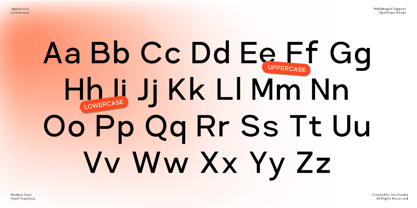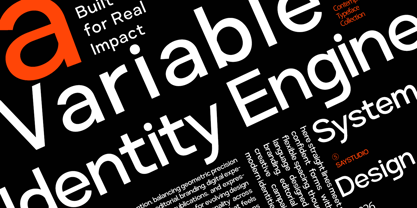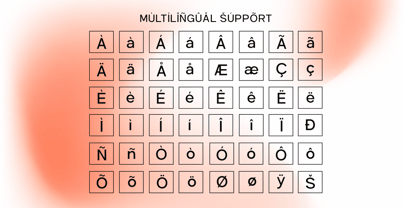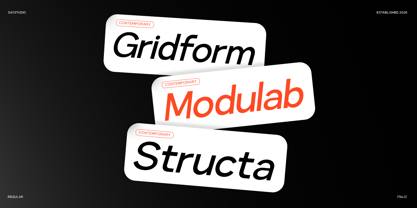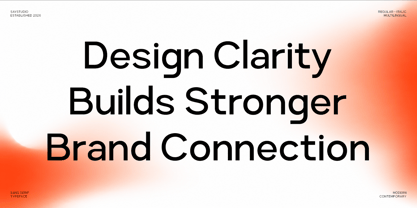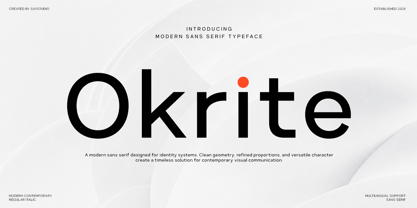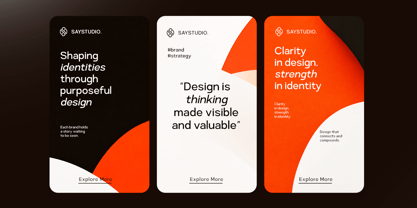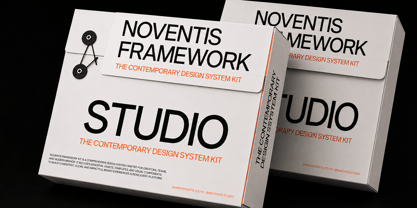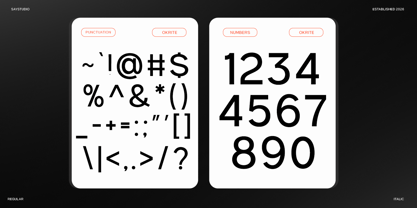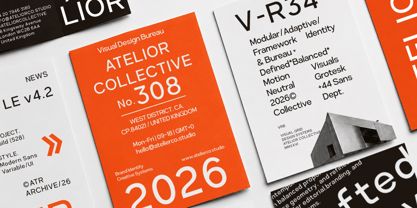
Okrite
Okrite is a modern geometric sans serif font designed for clean branding, editorial layouts, technology products, and contemporary visual identities. Built with balanced proportions, refined curves, and exceptional readability, it delivers a sophisticated look across both digital and print applications.
Featuring multiple weights and matching italics, Okrite offers the flexibility needed for everything from bold headlines to elegant body text. Its minimalist construction makes it ideal for logos, corporate branding, UI/UX design, magazines, websites, presentations, packaging, advertising, and creative marketing materials.
Whether you're creating a modern startup identity, premium editorial design, technology branding, architectural portfolios, fashion campaigns, or business presentations, Okrite provides a timeless and highly versatile typographic solution that combines precision, clarity, and contemporary style.